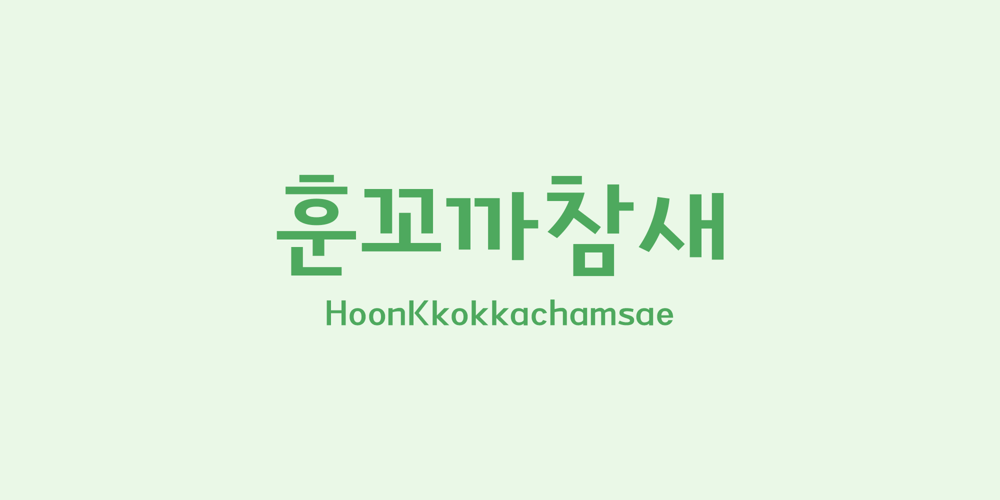
HOON Kkokkachamsae Font Family was designed by Doo-Yul Kwak, Yul Kwak Doo and published by Ziwoosoft. HOON Kkokkachamsae contains 1 styles and family package options. The final consonant was small designed to express cuteness.The changing writing line added a casual feeling.